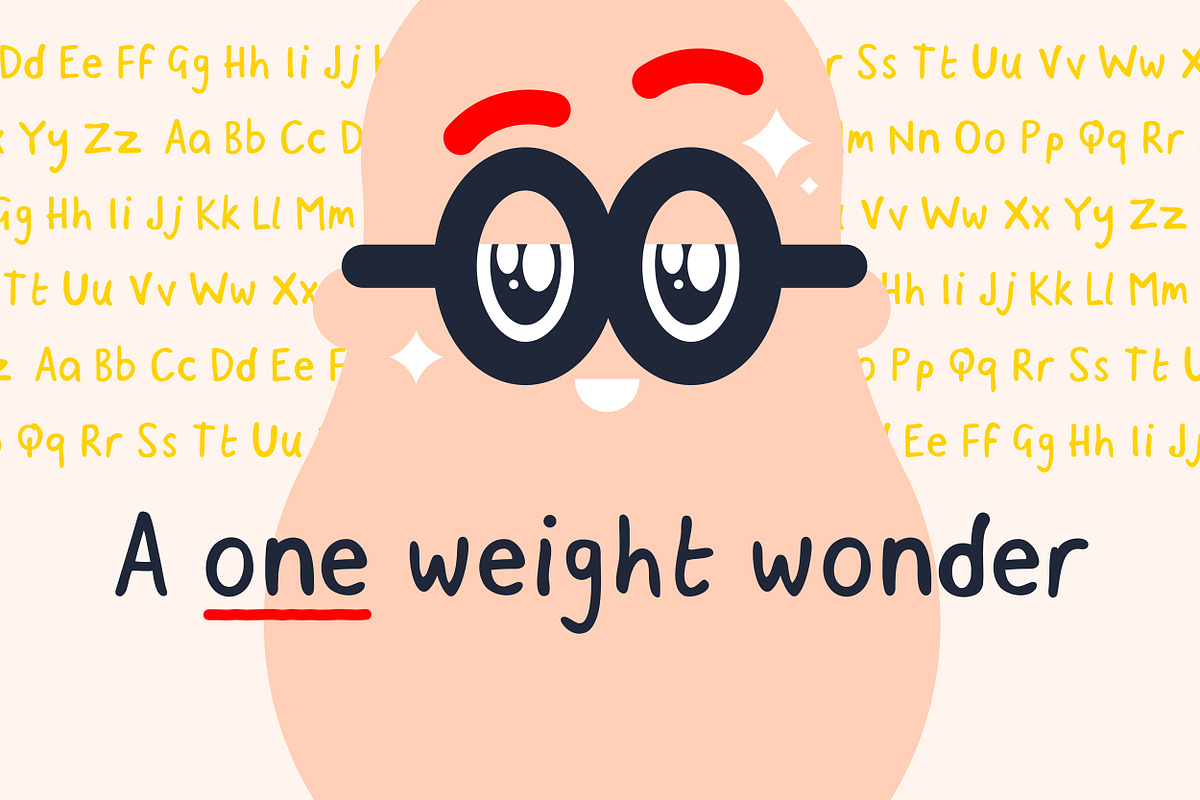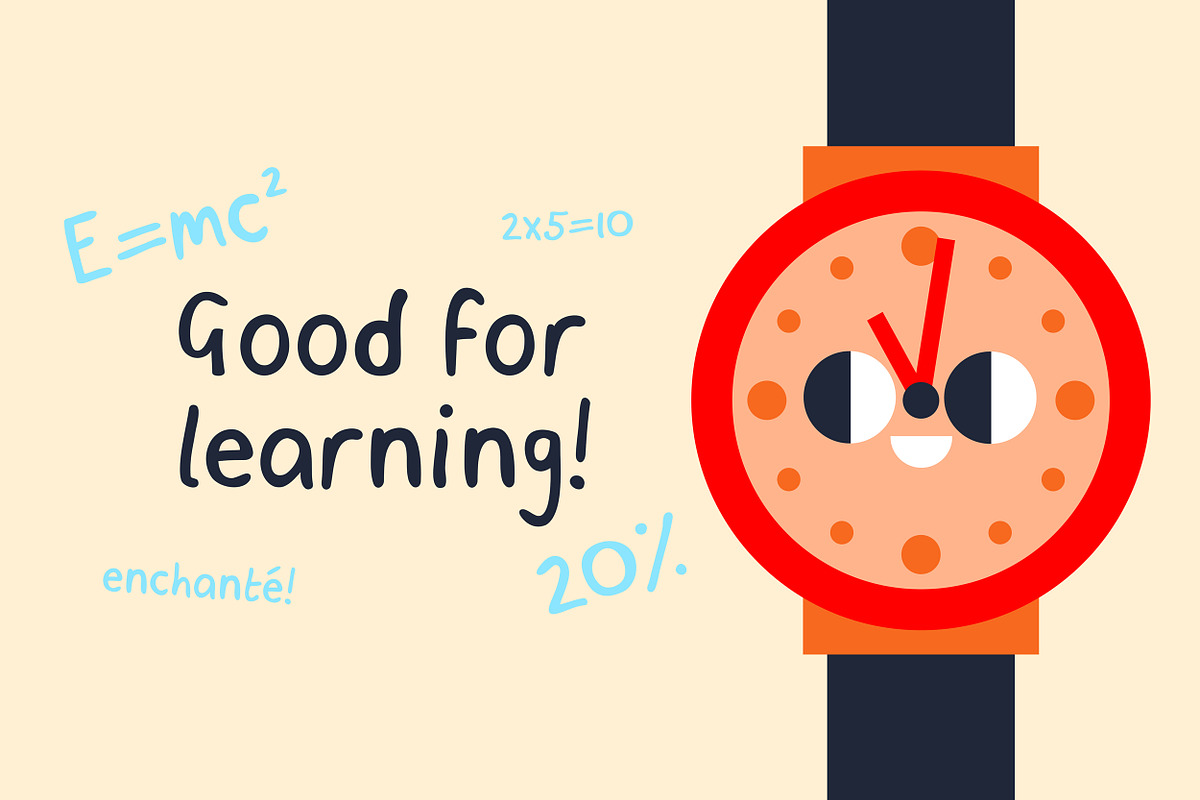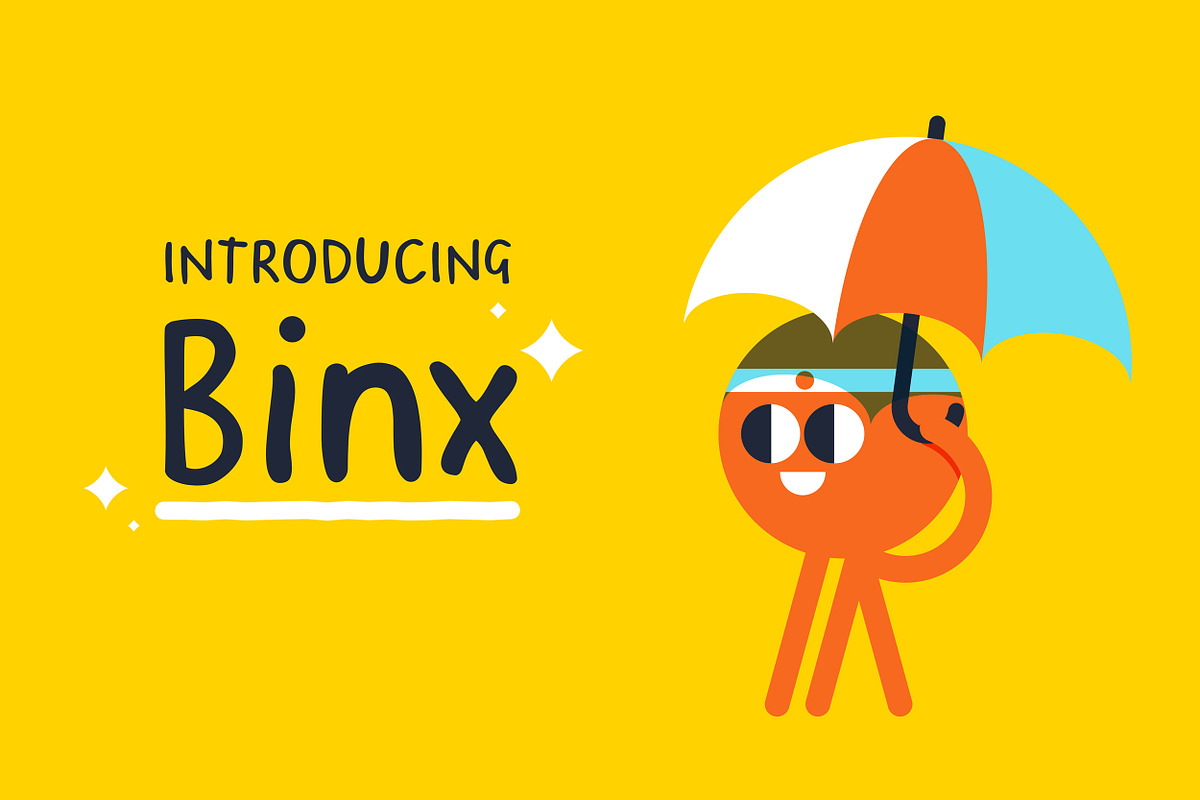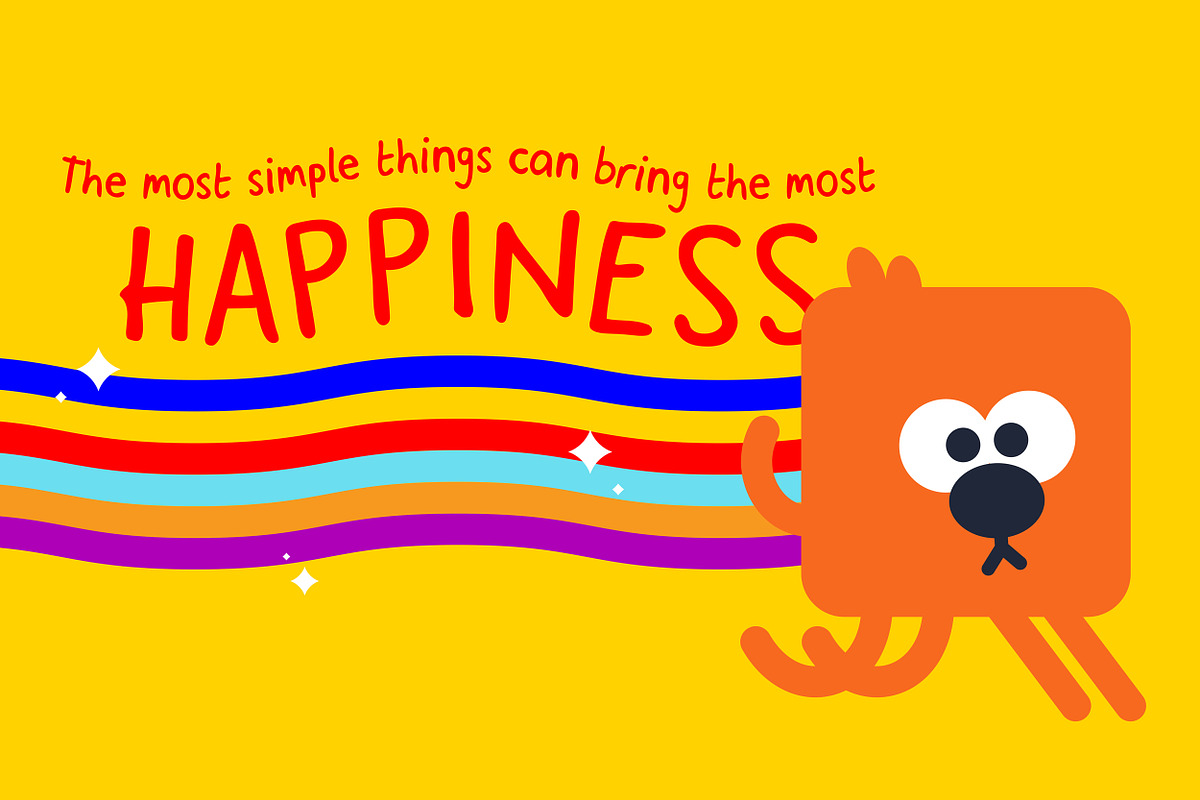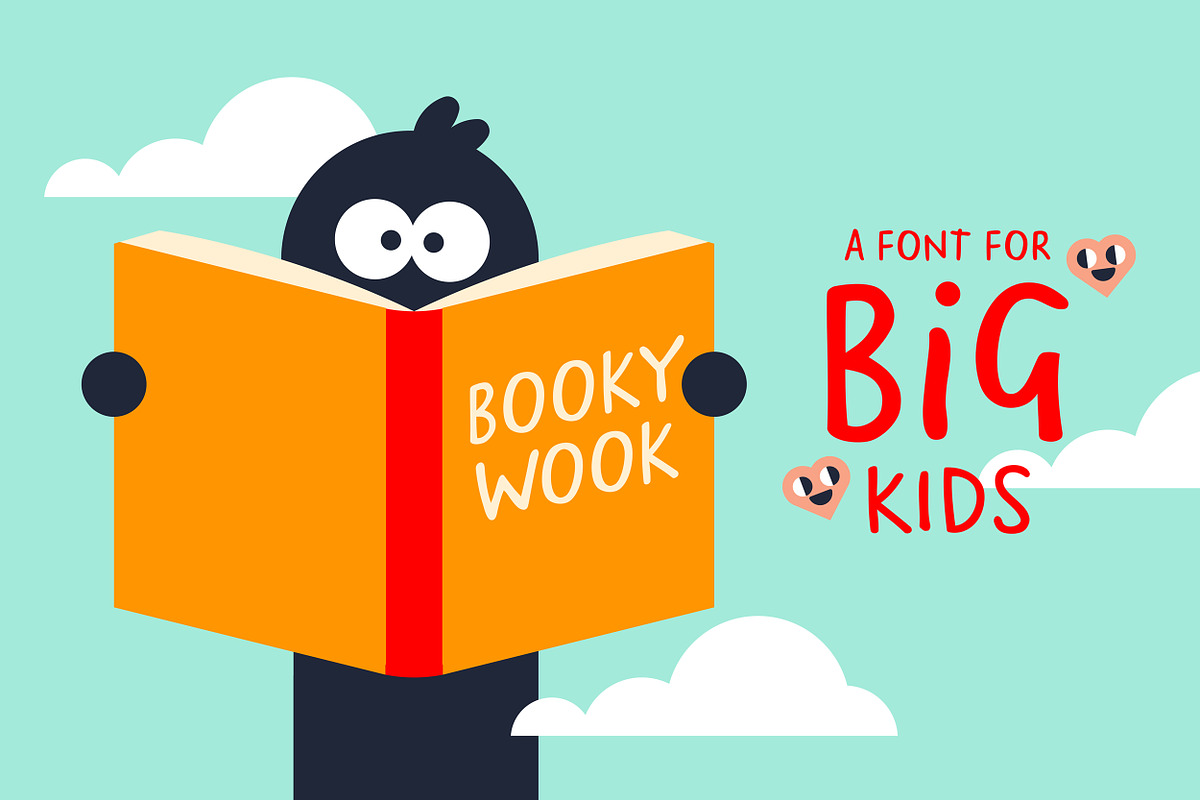
Binx font
Binx font by Mercato is a font selected for branding, posters, packaging, typography.
Why Binx font is worth a look
Binx font by Mercato fits naturally into Branding, posters, packaging, typography.